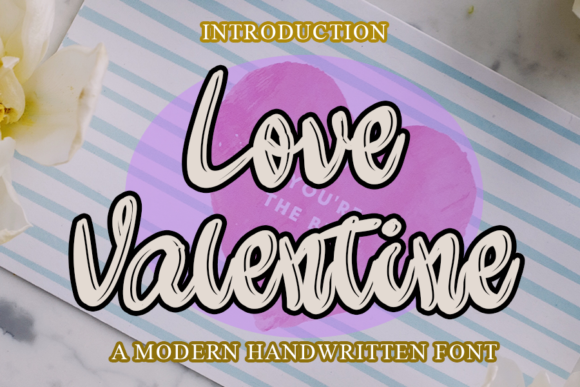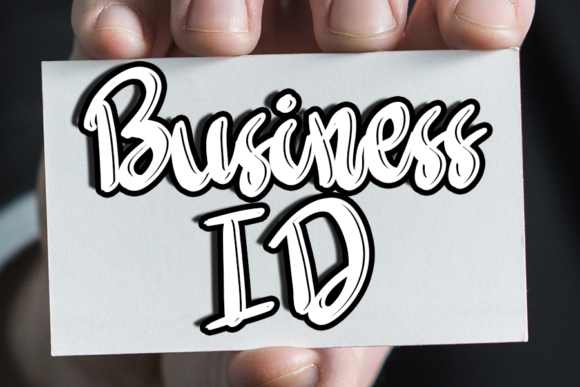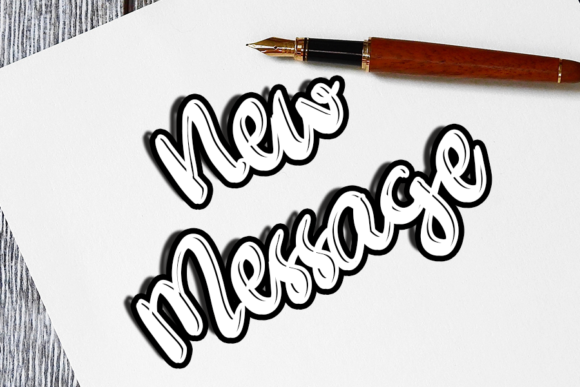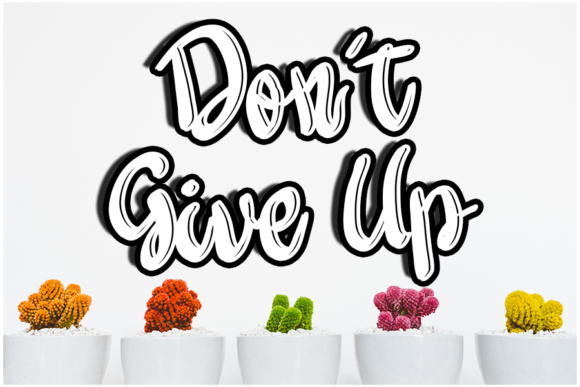
Love Valentine Font
About Love Valentine Font
Love Valentine is a fun, modern and bold handwritten font. Use this font for any crafting project that requires a handwritten touch!